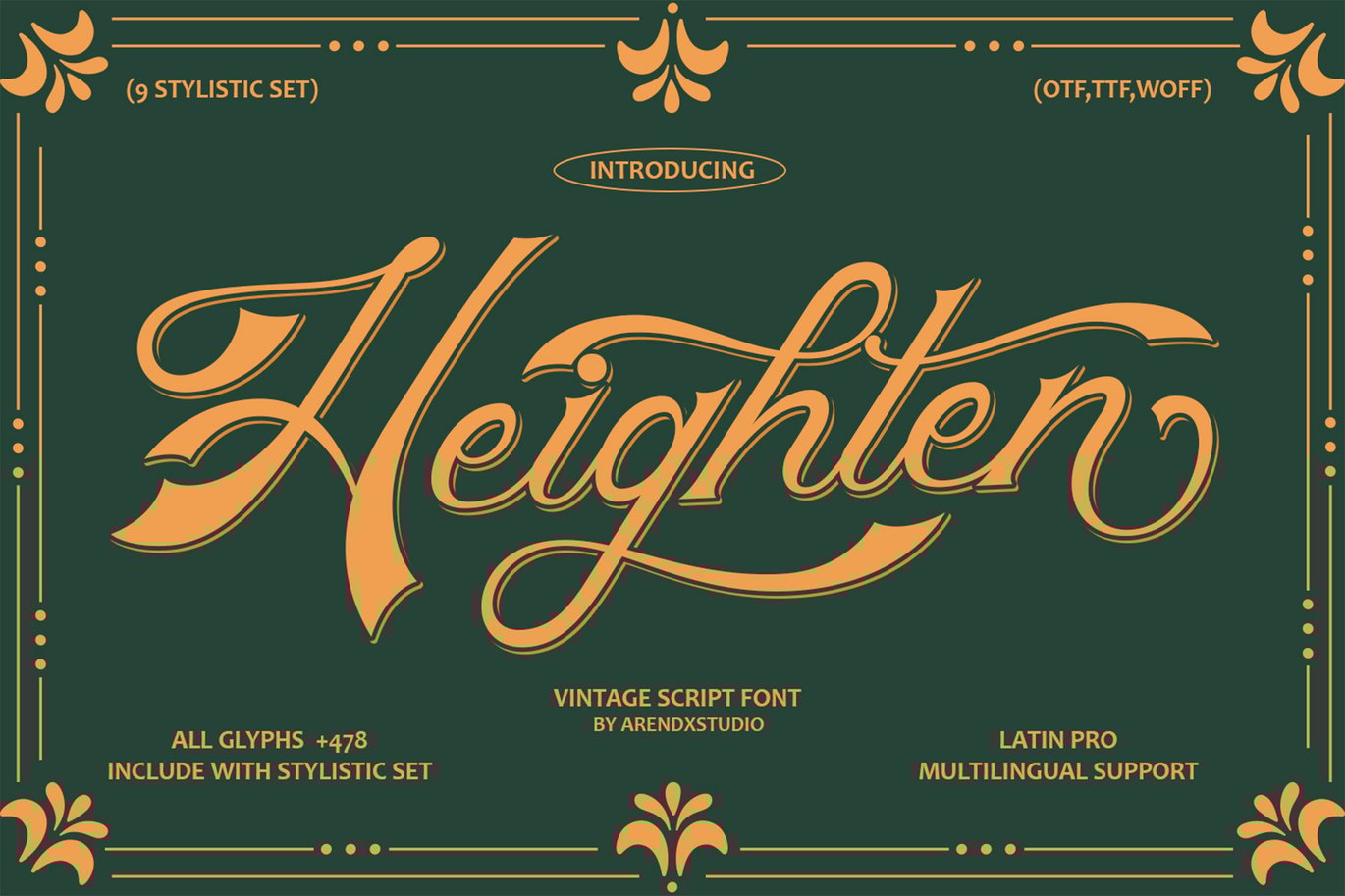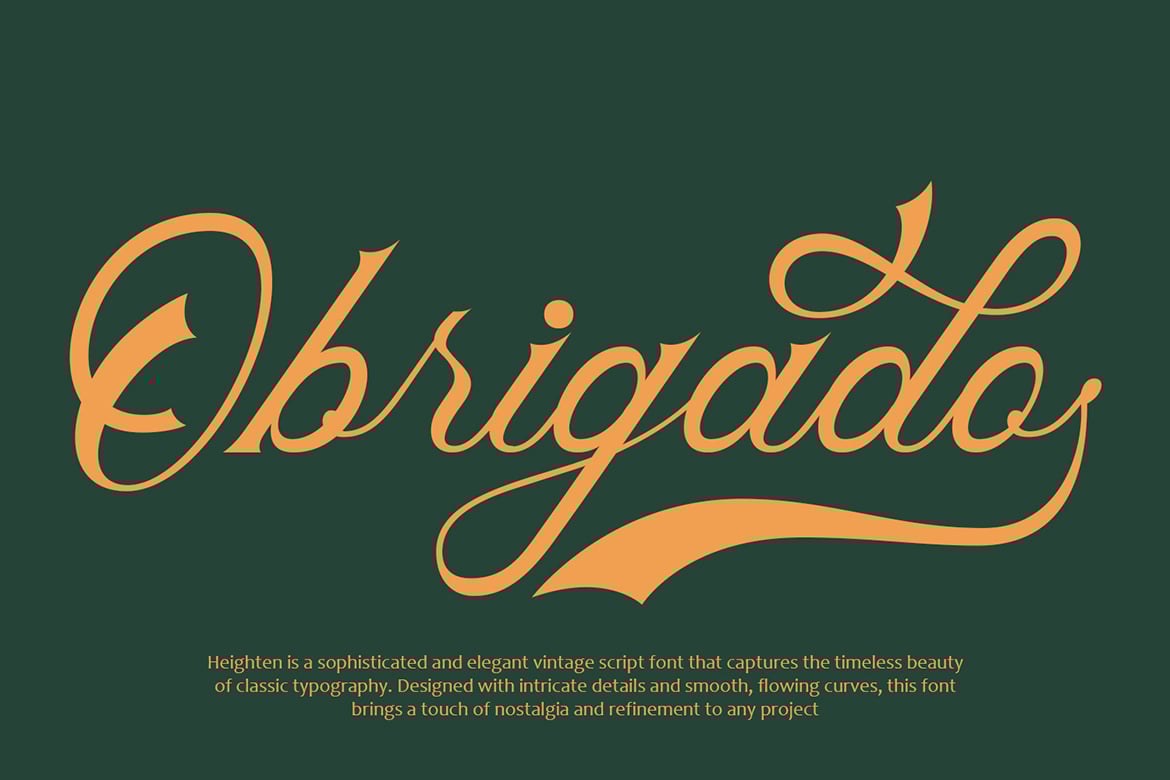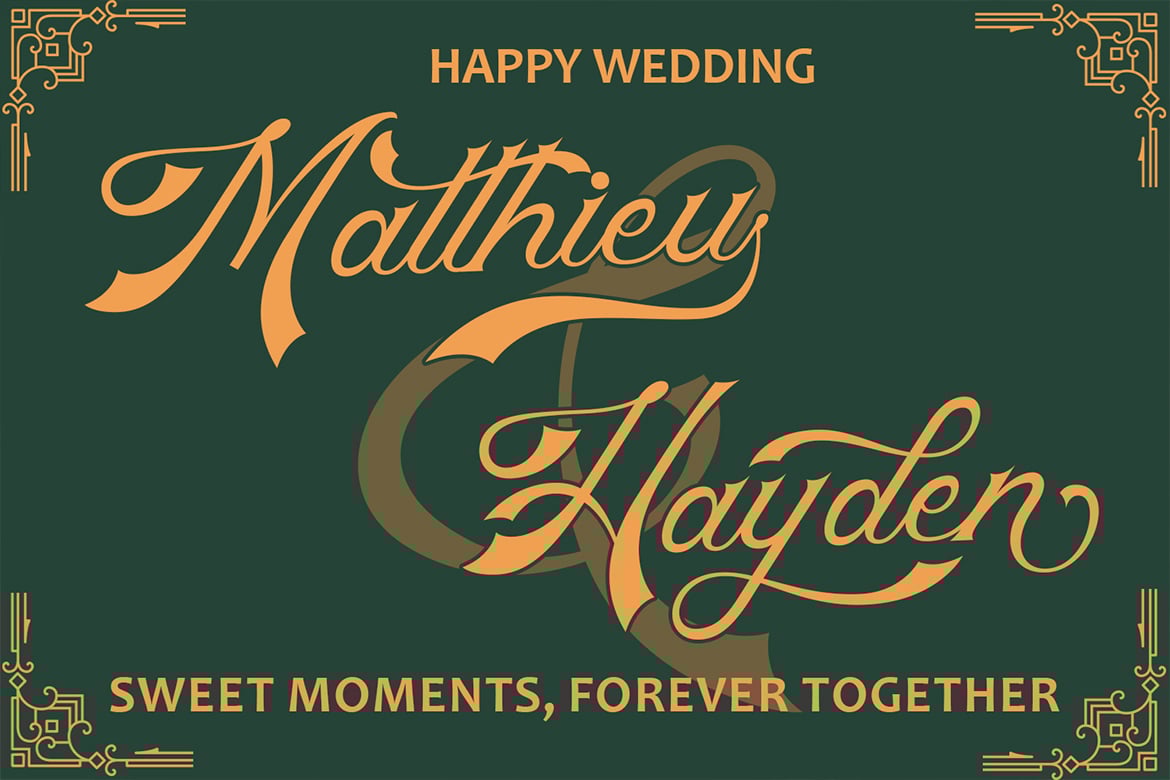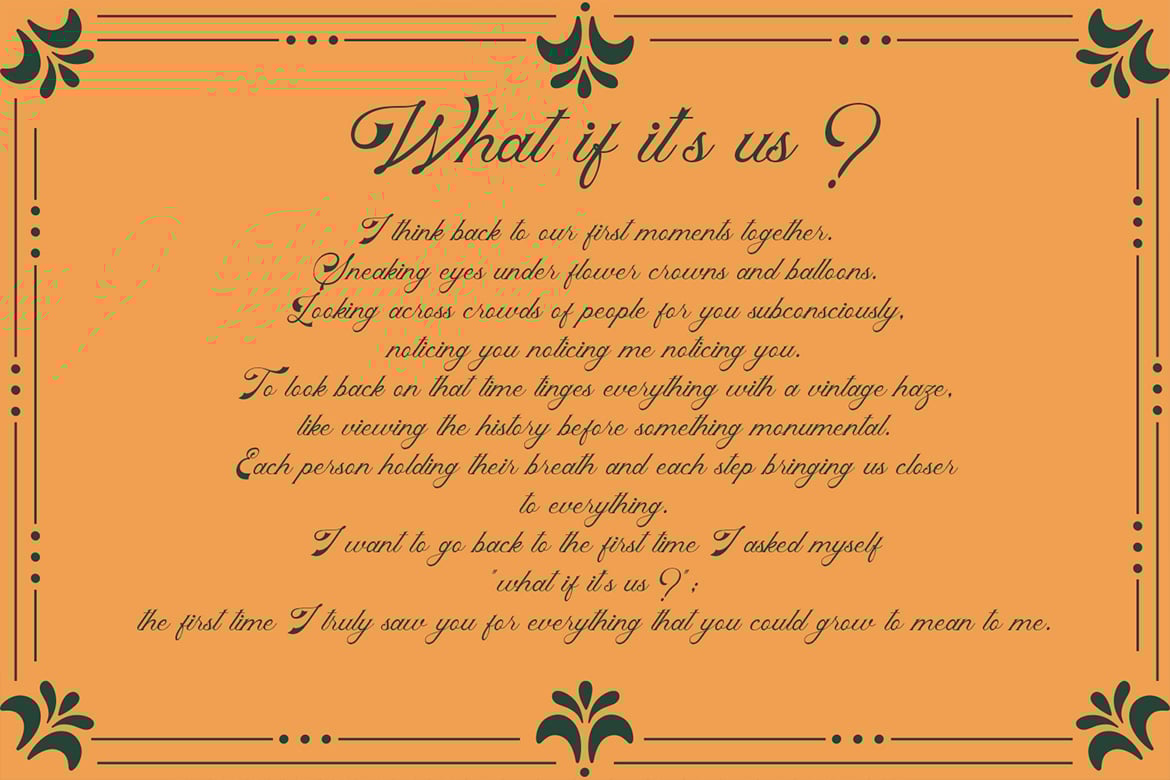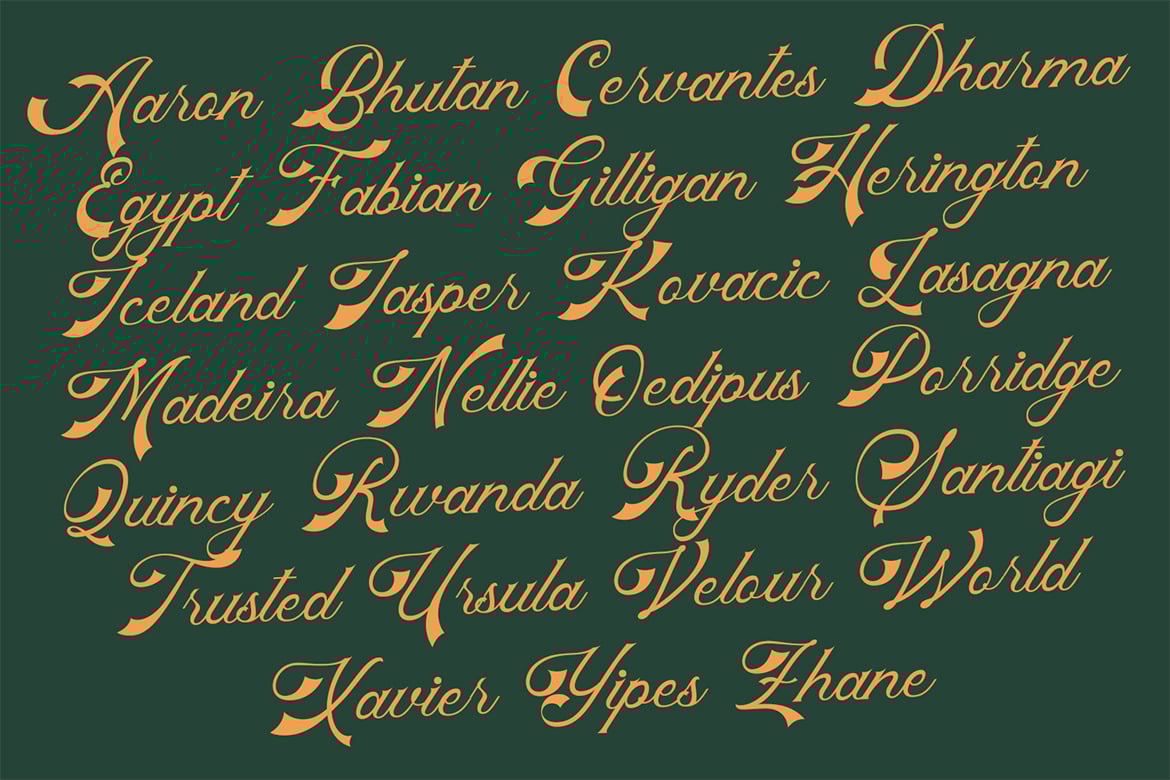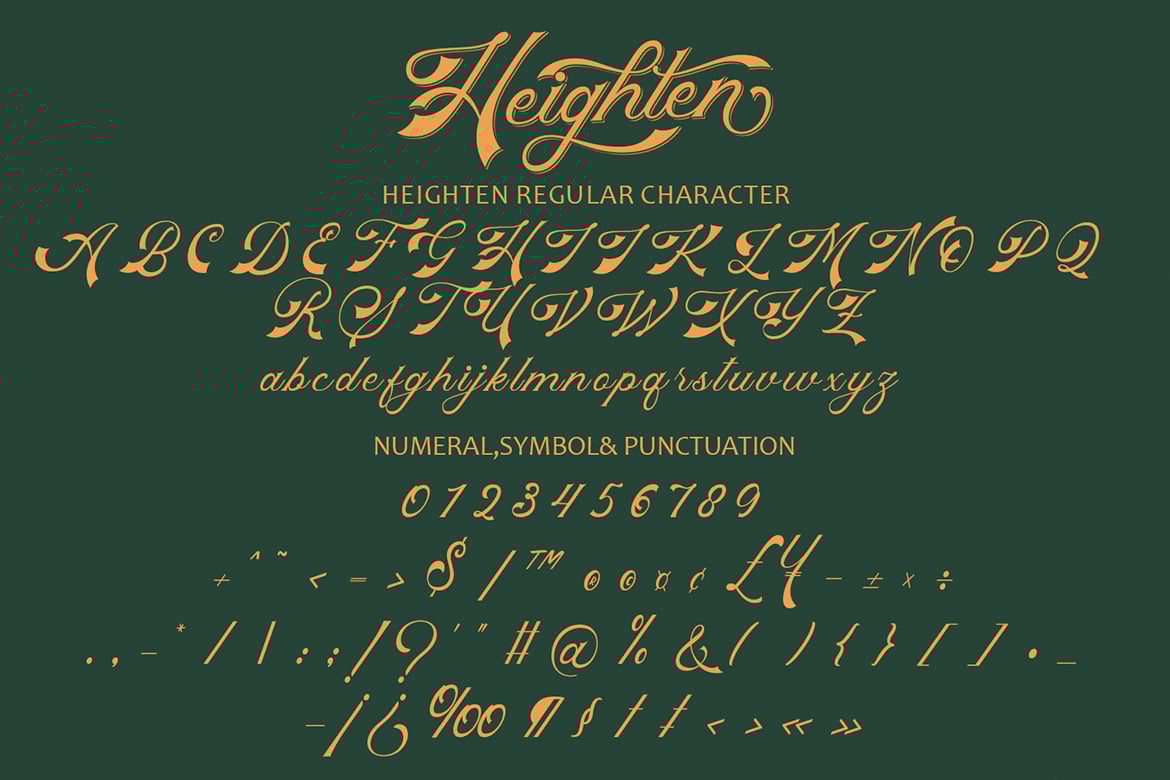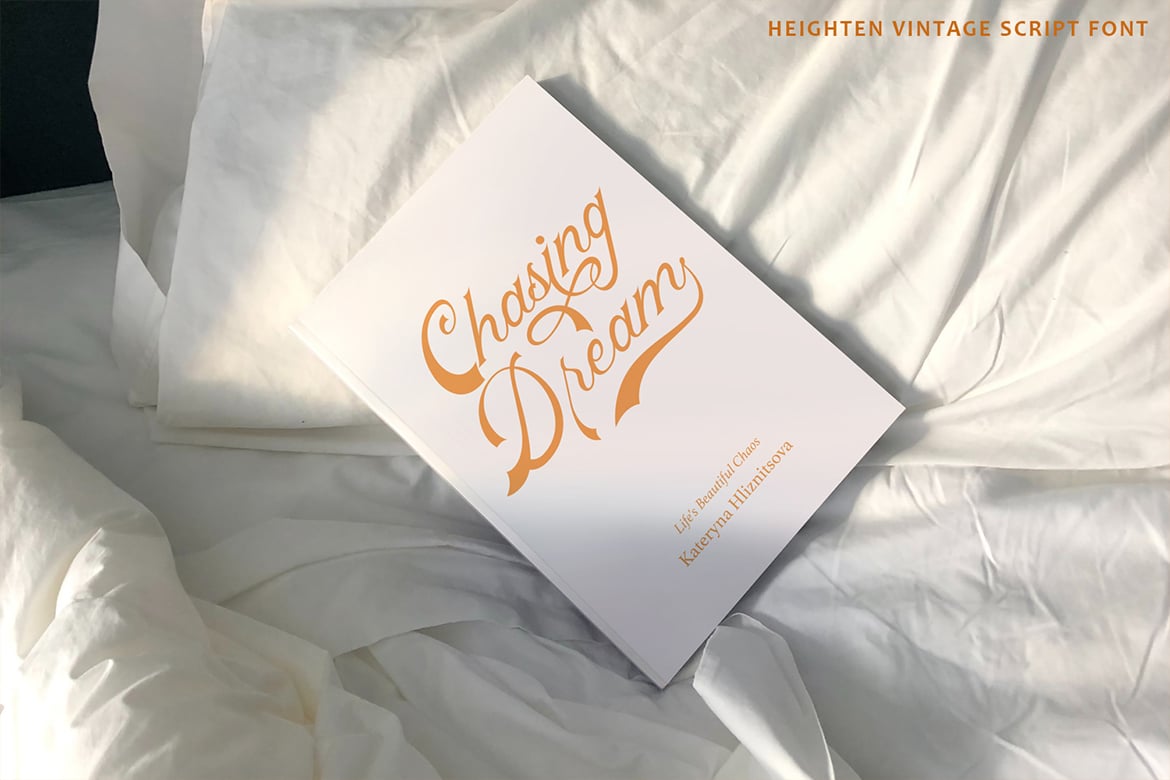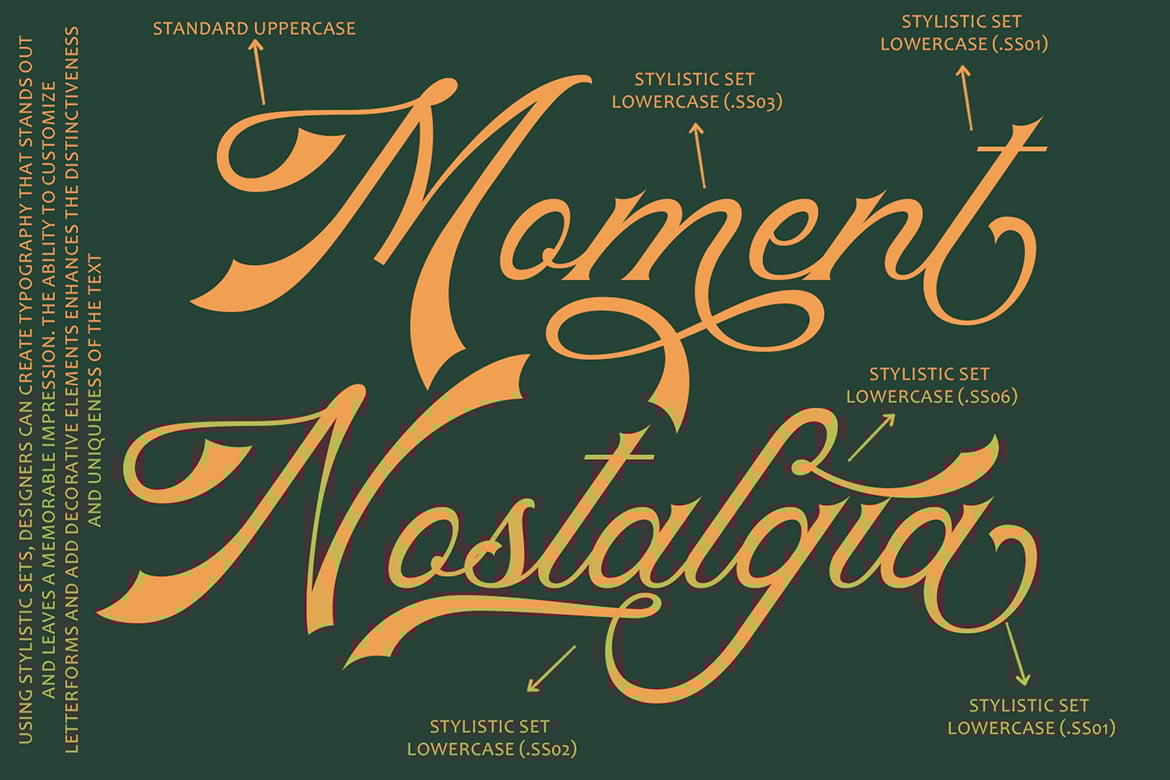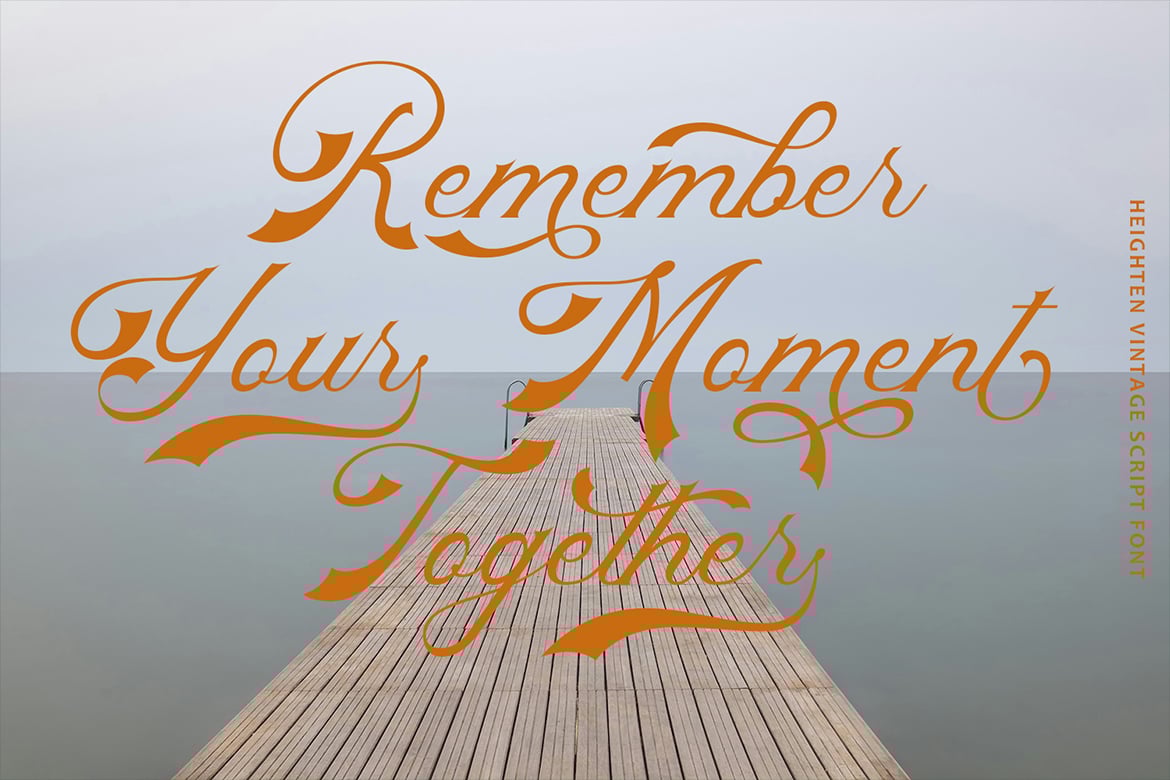
Heighten Vintage Script Font
### Heighten: Vintage Script Font
Font Name: Heighten
Type: Vintage Script Font
Overview:
Heighten is a sophisticated and elegant vintage script font that captures the timeless beauty of classic typography. Designed with intricate details and smooth, flowing curves, this font brings a touch of nostalgia and refinement to any project.
#### Key Features:
Elegant Design: - Flowing Script: Beautifully crafted letters that flow seamlessly from one to another, creating a harmonious and elegant appearance.
- Vintage Charm: Each character is designed with subtle vintage elements, giving the font a timeless and classic look.
Versatile Applications: - Logos and Branding: Perfect for creating stylish and memorable logos, branding materials, and packaging.
- Invitations and Stationery: Ideal for wedding invitations, greeting cards, and other formal stationery, adding a touch of class and sophistication.
- Editorial Design: Enhances the aesthetic of magazines, book covers, and other printed materials with its vintage charm.
Character Set: - Complete Alphabet: Includes uppercase and lowercase letters, numerals, and punctuation marks.
- Stylistic Alternates: Offers alternative character designs to provide versatility and customization options.
Additional Features: - Ligatures: Specially designed character combinations for improved readability and visual appeal.
- Swashes and Flourishes: Decorative elements that can be added to letters for extra flair and embellishment.
#### Usage Examples:
- Logo Design: Heighten’s elegant and vintage style makes it perfect for luxury brand logos, boutique shops, and artisan products.
- Wedding Invitations: Create timeless and beautiful invitations with the graceful flow and sophistication of Heighten.
- Packaging Design: Add a touch of vintage elegance to product packaging, enhancing the overall aesthetic and appeal.
#### Conclusion:
Heighten is a vintage script font that effortlessly combines elegance and nostalgia. Its intricate details, smooth curves, and versatile applications make it an ideal choice for designers looking to add a touch of classic sophistication to their projects. Whether used for logos, invitations, or editorial design, Heighten brings a timeless beauty that stands out and elevates any design.
Uppercase and lowercase characters
Accents (Supports Multilingual Characters)
Stylistic set
PUA Encoding